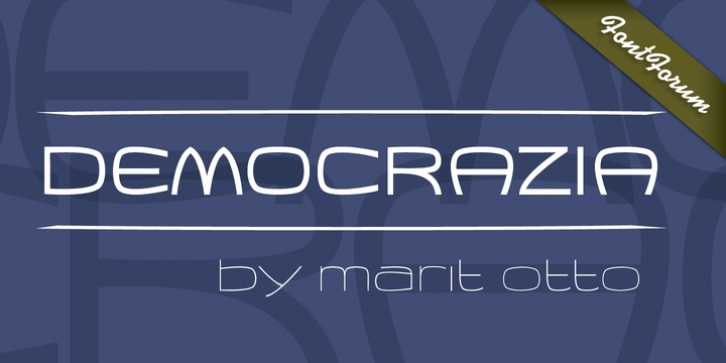
Democrazia is the agreeable typeface. It is smoothly curved and has a soft and open character. She is named after the principal, we all cherish, Democracy rooted in the Greek civilisation in the year 624 before Chr., called the Democracy of Athens. It is not perfect but seems the most sustainable of all systems. It requires interest and work to keep it in good shape. Although democracy is cherished it is easy to trample. My typeface is also fragile and shows signs of vulnerability, but has also a firm look. Like it says; you can bend me around but I won’t crack because I am free, creative and flexible. Suitable for all purposes.